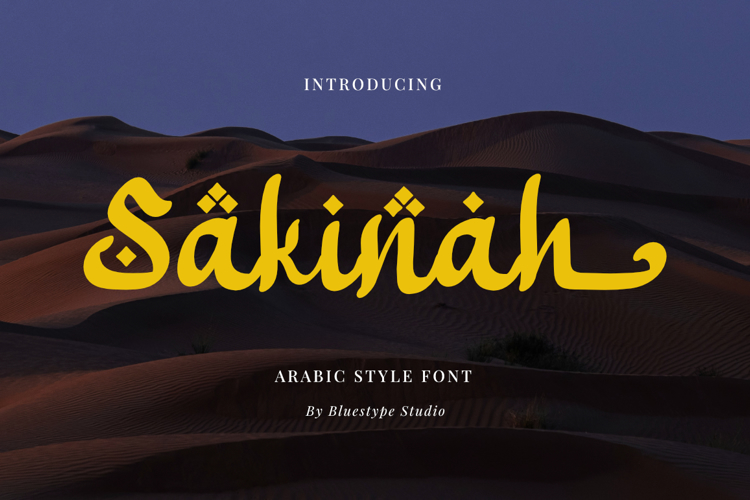
Sakinah Font
Elevate your creative projects with Sakinah, a premium Arabic-style script font that perfectly blends traditional Eastern aesthetics with modern typography. The word Sakinah (transquility) reflects the soul of this typeface—smooth, flowing, and deeply calming.